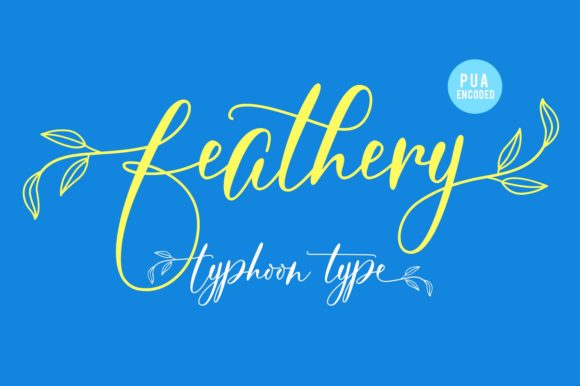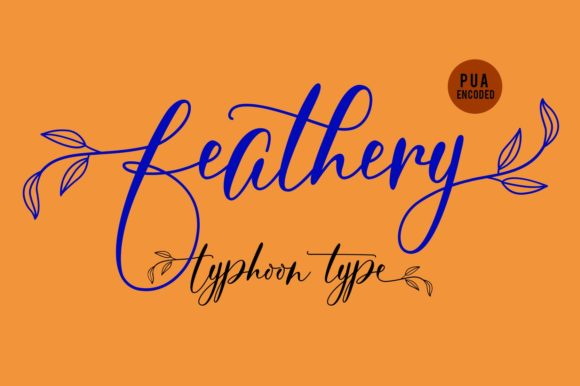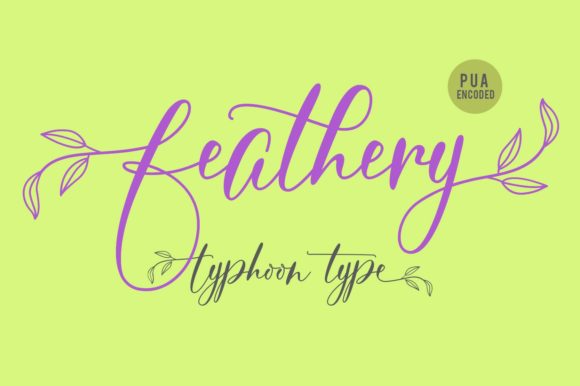
Feathery Font
About Feathery Font
Feathery is a delicate and flowing handwritten font, described by an elegant touch, perfect for your favorite projects. Fall in love with its incredibly distinct and timeless style and use it to create lovely designs! This font is PUA encoded which means you can access all of the glyphs and swashes with ease!